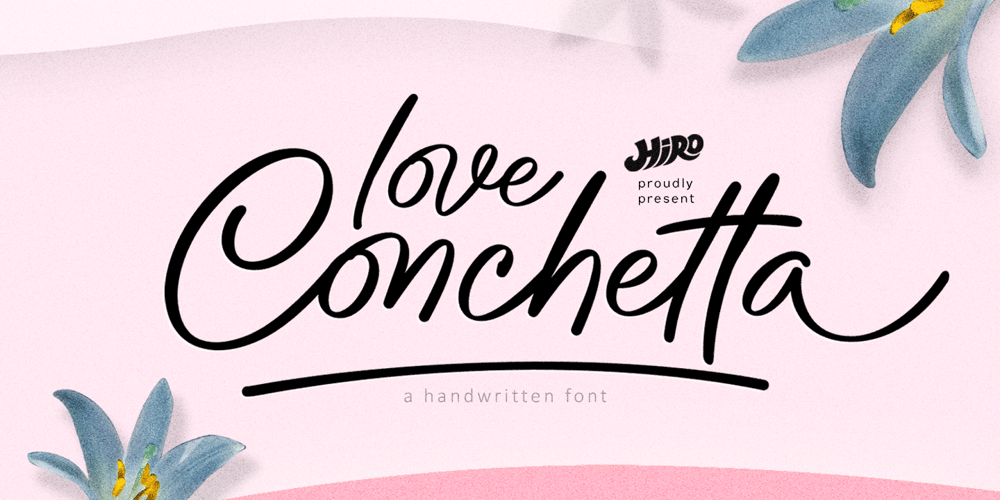
Love Conchetta Font Family was designed by Chairul Ashar and published by HIRO.std. Love Conchetta contains 1 styles and family package options. Love Conchetta is a semi casual script font.This font describes about easy going, beautiful, feminist, elegant, dynamic, humanist, easy to use and will bring a good harmony when the letters are connected and paired each other. FEATURES- Support Opentype Features- Support Ligatures- Uppercase- Lowercase- Numbering and Punctuations- Multilingual Support- Works on PC or MacUSE Love Conchetta works great in any branding, logos, magazines, invitation, wedding designs, social media posts, advertisements, product packaging, product designs, label, photography, invitation, stationery, elegant brush, quotes and any projects that need handwriting taste.